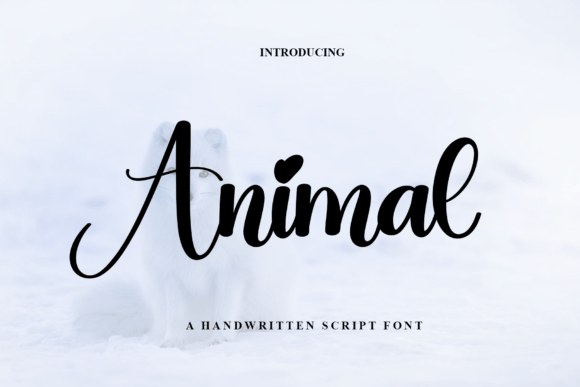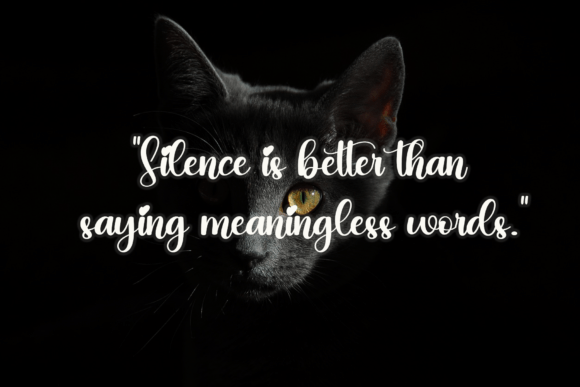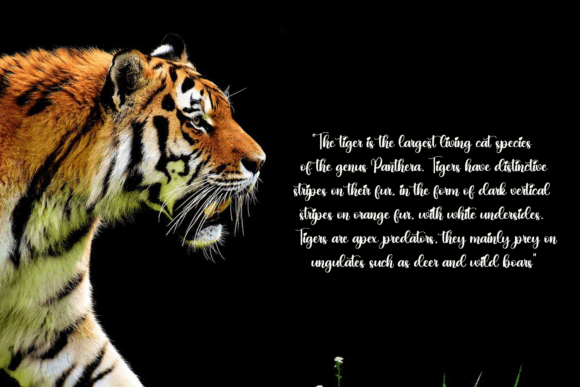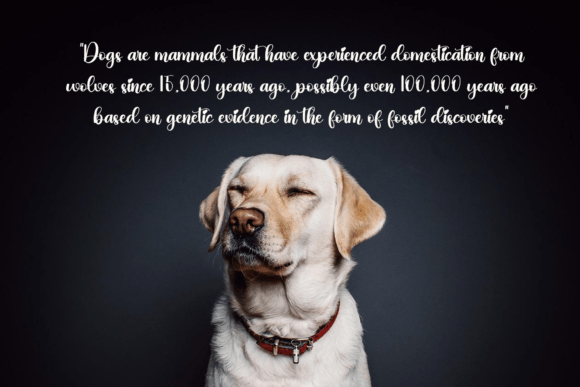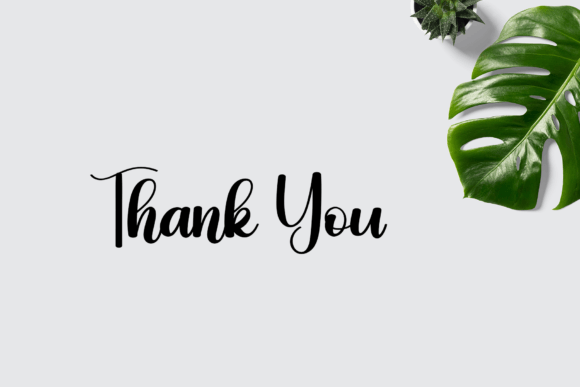
Animal Font
Introducing “Animal,” an elegant and feminine typeface designed to bring sophistication and charm to various headline applications. This versatile font is an ideal choice for a wide range of creative projects, including wedding stationery, invitations, florists’ branding, packaging, and social media posts. With its refined and graceful design, “Animal” adds a touch of elegance to your text.
The elegance and femininity of “Animal” make it well-suited for different design contexts. Whether you’re creating wedding invitations, establishing a floral brand identity, or enhancing your social media presence, this font is crafted to bring a sense of refinement to your headlines.
Imagine “Animal” gracing your wedding stationery, where its elegant typeface creates a timeless and romantic atmosphere. Picture it on florist branding, adding sophistication to your logo and packaging. Envision it becoming the signature font for your social media posts, creating a cohesive and feminine visual identity.
“Animal” is not just a font; it’s a design element that brings elegance and femininity to your projects. Its versatility allows it to shine in various applications, making it a valuable addition to your font collection.
Add “Animal” to your creative toolkit and experience how it effortlessly elevates your headlines. Let it be the elegant and feminine typeface that adds a touch of sophistication to your wedding stationery, invitations, branding, and more!